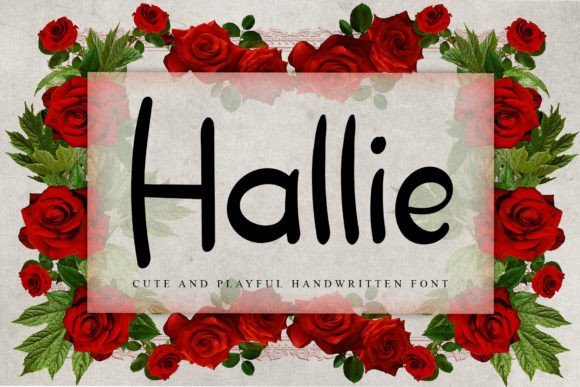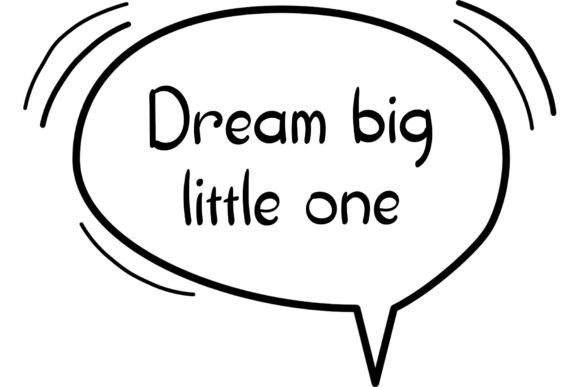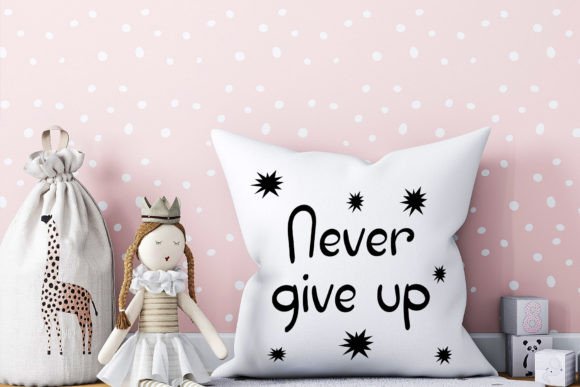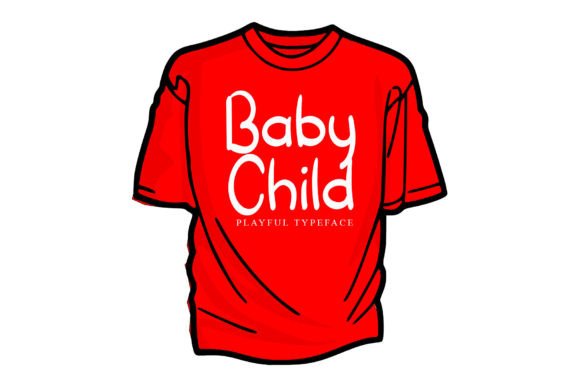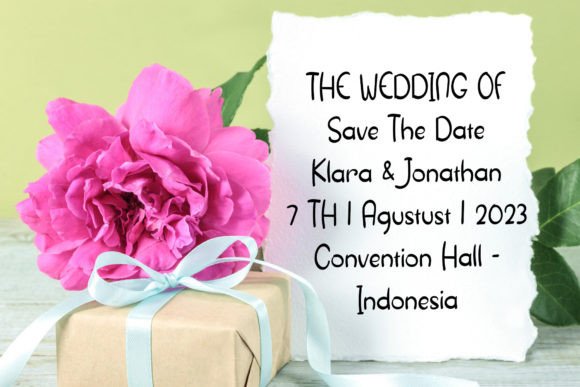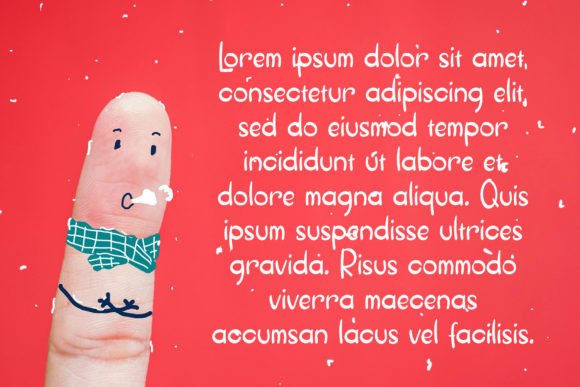
The Art of Handwritten Perfection: Hallie Font
There’s nothing quite like the feeling of scribbling down an idea on a piece of paper, watching as the words and doodles come to life. It’s a moment of pure creativity, unbridled by the constraints of digital screens. For designers, this sensation is a rare gem, one that can be replicated with the right tools. That’s where the Hallie Font comes in – a unique and elegant font that captures the essence of handwritten perfection.
Whether you’re crafting wedding invitations, designing greeting cards, or creating eye-catching billboards, the Hallie Font is the perfect companion. Its varied baseline and natural, hand-made touch make it a valuable asset for designers looking to add a personal touch to their work. With its PUA encoding, accessing all glyphs and swashes is a breeze, making it an ideal choice for creatives who crave precision and ease.
- Font Family: Hallie is a sans-serif font family, specifically designed for digital use.
- Font Size and Weight: Offers a range of font sizes and weights, from light to bold, to cater to various design needs.
- Character Set: Includes a comprehensive character set, supporting multiple languages, including Latin, Cyrillic, and Greek scripts.
- Resolution and PPI: Designed for high-resolution displays, with optimal legibility at 72-120 PPI (pixels per inch).
- Unique Characteristics: Hallie’s distinctive geometric shapes and clean lines make it an ideal choice for modern and minimalist designs.
Review: Hallie Font
Overall, I was quite impressed with the Hallie font. Its clean lines and rounded edges give it a friendly, approachable feel that would work well for a variety of projects.
Here are some of the things that really stand out about Hallie Font: ✨
- Clean and modern design
- Perfect for body text or display headings
- Legibility is excellent, even at small font sizes
- The font may feel a bit too plain for projects that require a lot of visual flair
- Some users may find the rounded edges a bit too soft
- Customization options are limited
Despite these limitations, I think Hallie Font is a solid choice for many projects. It’s easy to use, looks great on a variety of backgrounds, and is highly legible. If you’re looking for a clean, modern font that won’t overwhelm your design, Hallie Font is definitely worth considering.
Hallie Font is ideal for creating elegant and sophisticated designs, such as invitations, business cards, and branding materials. It’s also suitable for use in digital products, like ebooks and presentations.
To get the most out of Hallie Font, use it in combination with other elegant fonts, and adjust font size and color to create visual balance. Experiment with different font styles and combinations to achieve unique designs.
Lato is a sans-serif font that offers a modern and clean look. It’s ideal for use in digital products, apps, and websites where a clear and readable font is required. Lato is a great alternative to Hallie Font for designers who want a more contemporary feel.
Comparison to Hallie Font: Lato is more geometric and modern compared to Hallie Font, which has a more elegant and sophisticated feel. While Hallie Font is suitable for luxury brands, Lato is better suited for tech and digital products.
Alegreya is a serif font that offers a sophisticated and elegant look. It’s ideal for use in publications, magazines, and books where a high-end feel is required. Alegreya is a great alternative to Hallie Font for designers who want a more traditional and refined look.
Comparison to Hallie Font: Alegreya is more traditional and refined compared to Hallie Font, which has a more modern and elegant feel. While Hallie Font is suitable for luxury brands, Alegreya is better suited for high-end publications and books.